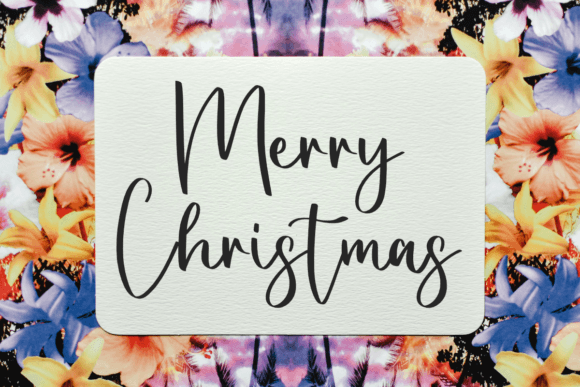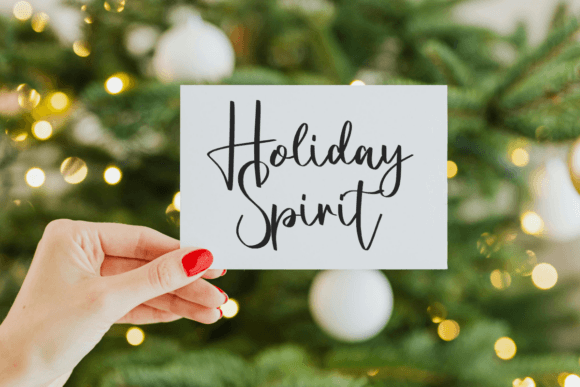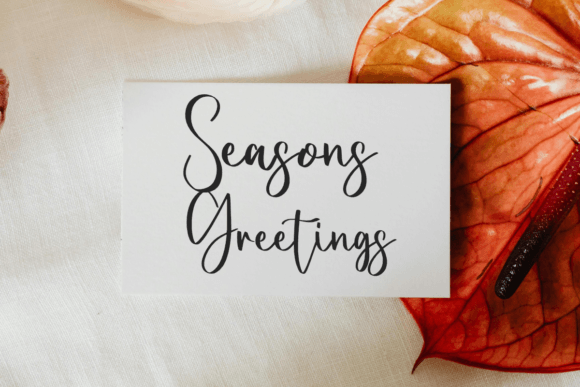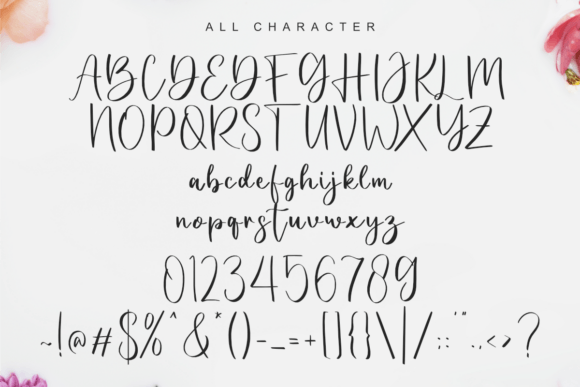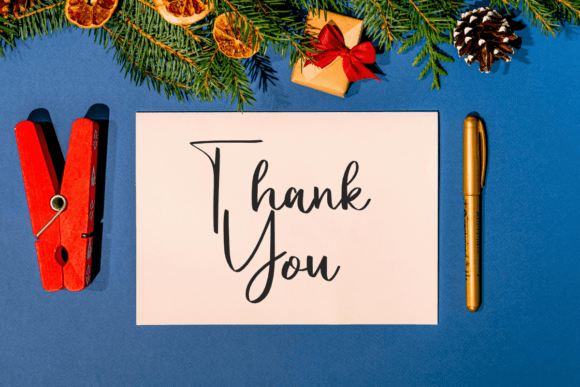
Get Ready to Deck the Halls with Typography
It’s that time of the year when creativity knows no bounds, and the festive spirit takes over. You’re rummaging through your design stash, searching for the perfect font to make your holiday projects truly special. And then, it hits you – the magic of a well-chosen typeface can elevate your designs from ordinary to extraordinary. For designers, finding the right font can be a game-changer, and that’s where Awesome Christmas Font comes in.
This festive font is more than just a pretty face – it’s a reflection of the holiday season’s spirit. With its natural calligraphy style and unique flair, Awesome Christmas Font adds a touch of charm to your designs, making it perfect for greeting cards, gift labels, and holiday-themed projects. By incorporating this font into your designs, you’ll bring a cheerful and nostalgic atmosphere to your words, making them shine like a star on a Christmas tree.
Awesome Christmas Font Key Features
- Unique Characteristics: The font features a bold, playful, and modern design with intricate details, perfect for creating eye-catching Christmas-themed graphics and designs.
Awesome Christmas Font Review
I recently had the chance to work with the “Awesome Christmas Font” and I must say it’s a mixed bag. Here are my thoughts:
- The font has a great festive feel to it, perfect for any holiday project.
- The design is playful and fun, with a nice balance of bold and cursive elements.
- The font is highly customizable, with a wide range of color options and effects available.
- The font may be a bit too over-the-top for some projects, it’s quite loud and eye-catching.
- The font doesn’t work well in smaller sizes, the letters can become blurry and difficult to read.
- The font is only available in a limited range of languages, which may be a problem for some users.
Overall, I’d say the “Awesome Christmas Font” is a fun and festive addition to any holiday project. While it has some limitations, the font is highly customizable and has a great design. If you’re looking for a bold and playful font to add some holiday cheer to your project, this may be the perfect choice. Just be aware of its limitations and use it wisely.
The Awesome Christmas Font is perfect for creating festive holiday designs, such as Christmas cards, gift tags, and social media graphics. It can also be used for web design, print materials, and other creative projects.
To get the most out of the Awesome Christmas Font, experiment with different font sizes, colors, and styles to create a unique and eye-catching design. You can also pair it with other festive fonts and graphics to create a cohesive and engaging look.